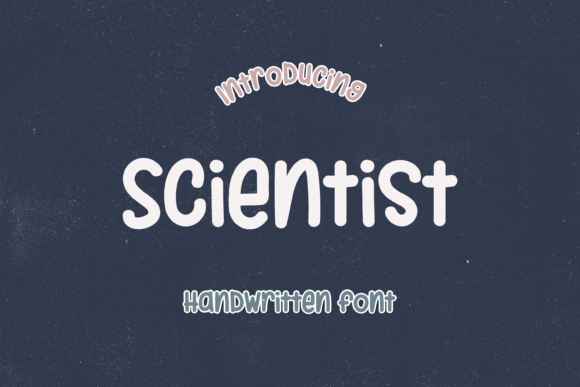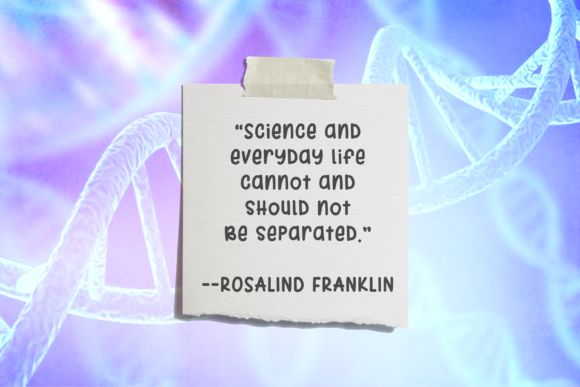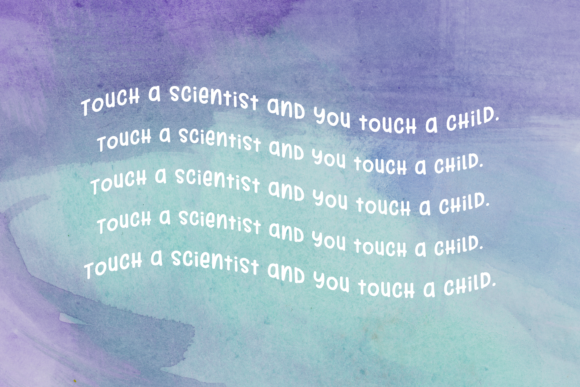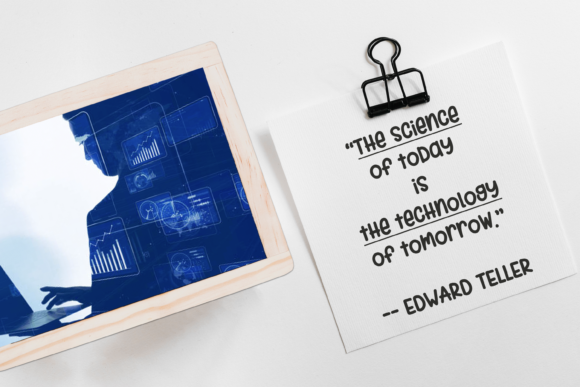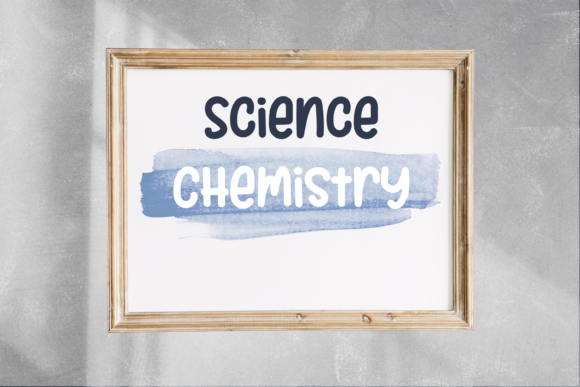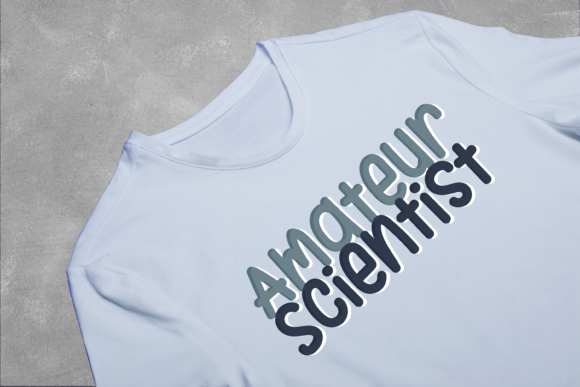
Scientist Font
About Scientist Font
Scientist is a playful & bouncy handwritten font. Get inspired by its incredibly playful feel. Use this font to turn any design project into a standout!